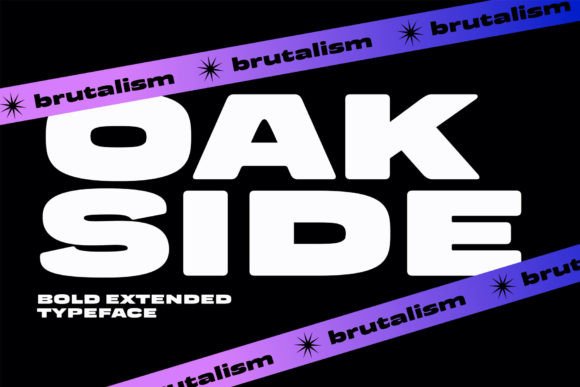
Prepare to embrace Oakside, a modern, elegant, and incredibly versatile display font family tailor-made to ignite your creative spirit. Designed by the talented team at GetStudio, Oakside exudes boldness and sophistication, making it an indispensable resource for design professionals seeking to captivate audiences.
Immerse yourself in the realm of Oakside, a stunning Bold Extended Typeface that blends the charm of classic typography with a contemporary twist. Each character radiates a sense of strength and impact due to its extended proportions and bold strokes, ensuring your designs cut through any clutter.
As a designer, you know the importance of making a statement. Oakside Font is your secret weapon for creating designs that demand attention and admiration. Its unique blend of modern aesthetics and timeless appeal allows you to elevate your projects to unimaginable heights, leaving a lasting impression on all who encounter them.
Whether you're crafting eye-catching logos, designing captivating posters, or producing stunning social media graphics, Oakside's versatility shines through. Its bold extended characters add a touch of drama and intrigue to any project, transforming ordinary designs into masterpieces.
Don't settle for ordinary fonts. Unleash the full potential of your creativity with Oakside - the bold extended typeface that will redefine your design journey. Embrace the future of typography today and leave an unforgettable mark on the world with your exceptional creations.